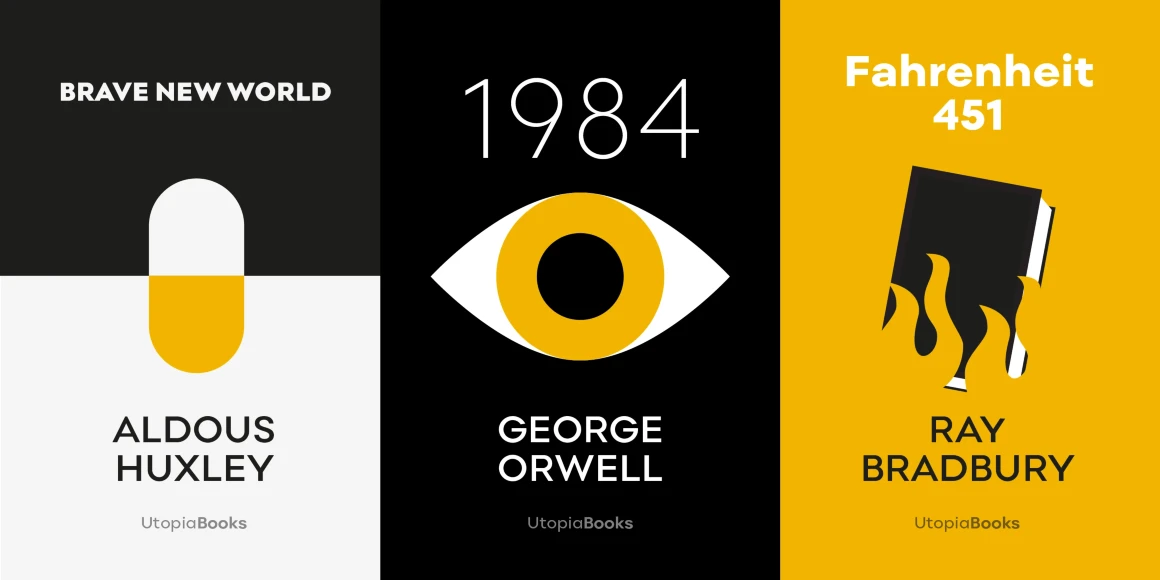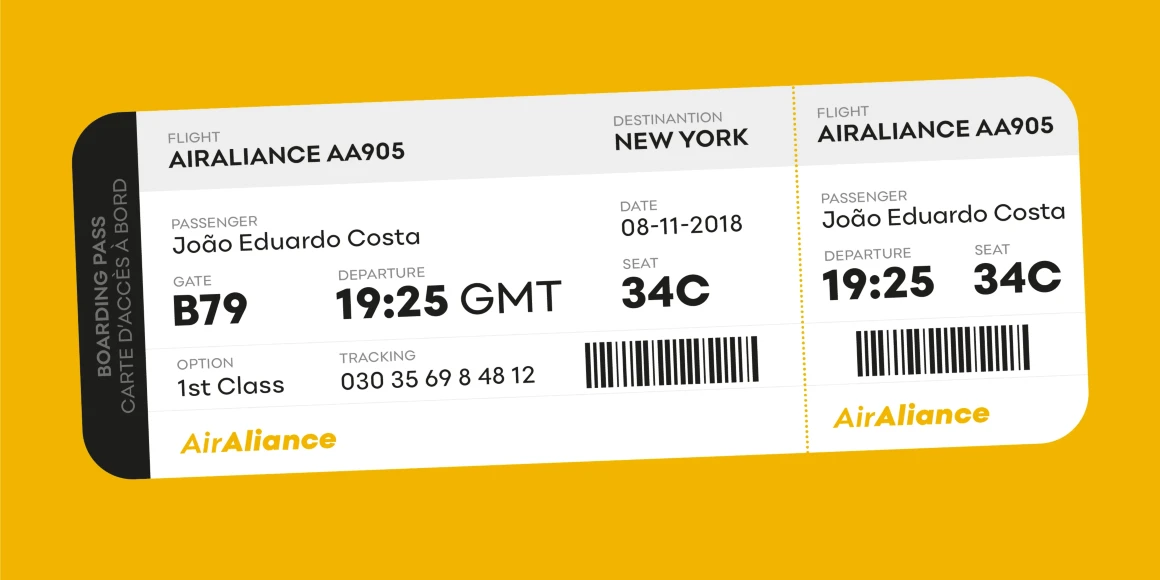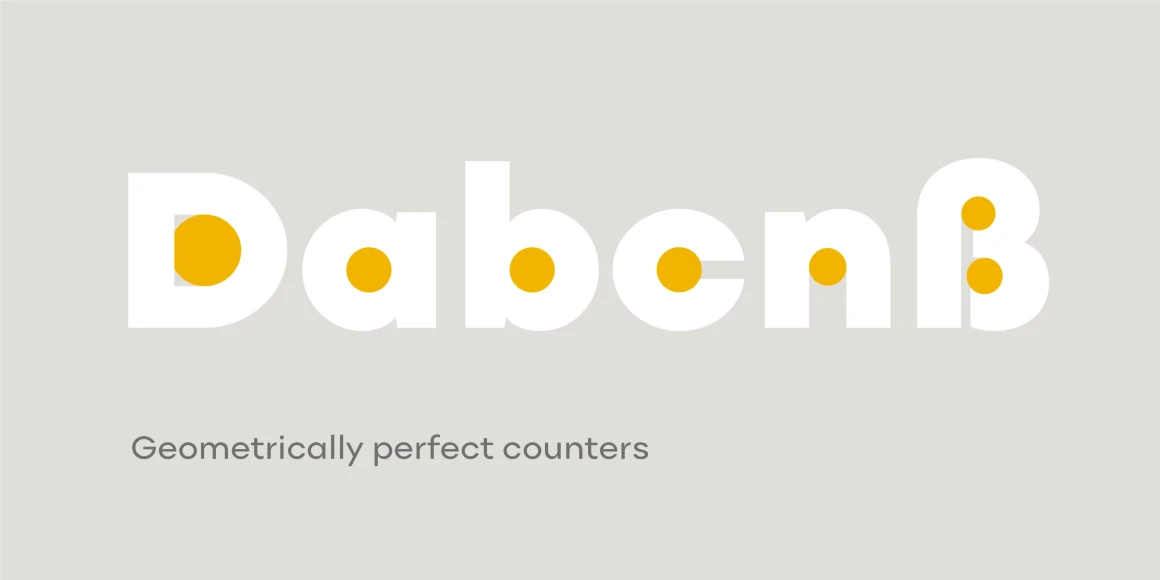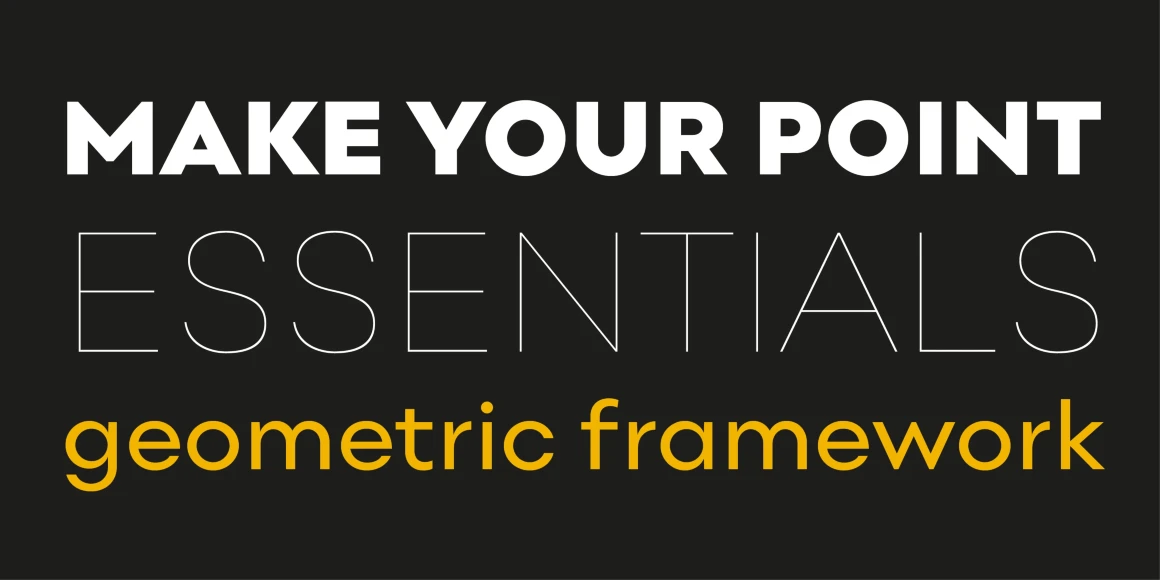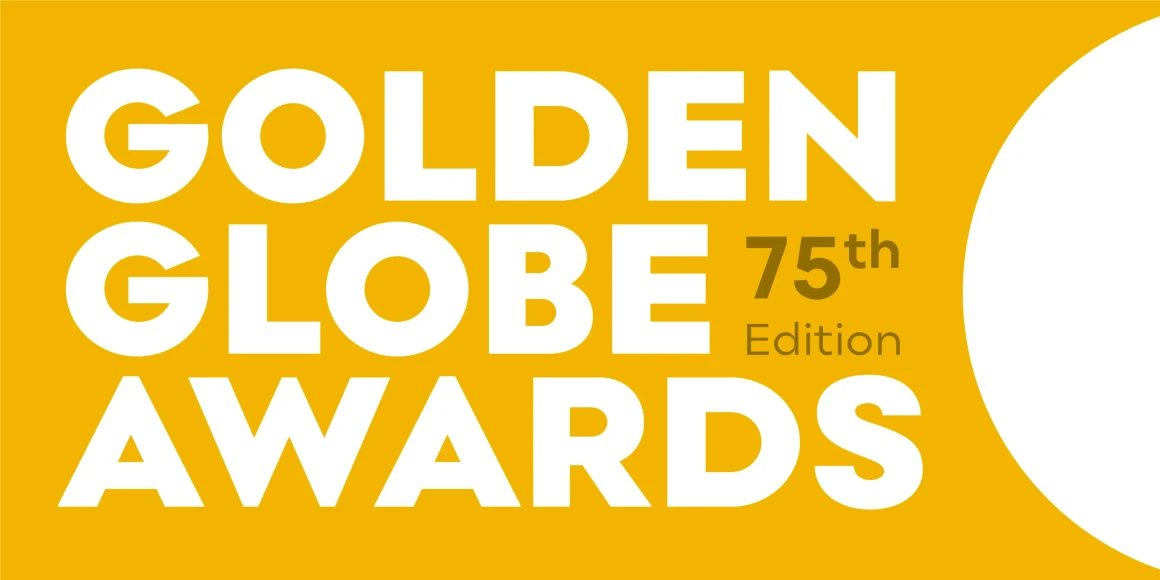
Point
By Natanael Gama
Point aims to be an epitome of the geometric style. Inspired by intemporal classics such as Futura, Avant Garde or Avenir, passing through more contemporary approaches of the same style; ignited by the overarching narrative of the Modernity (Perfect Geometric Shapes) and careful design decisions, Point is a font that references the past as well as projects itself to the contemporaneity. With a total of 10 weights, with respective hand adjusted obliques, Point has a total of 20 styles with Extended Latin support as well as Cyrillic, all with the most needed Opentype features, such as fractions, tabular and oldstyle figures, alternates, case sensitive forms, etc. Point has a superb versatility and can be used in almost every circumstance, try it for yourself and see what point Point makes.